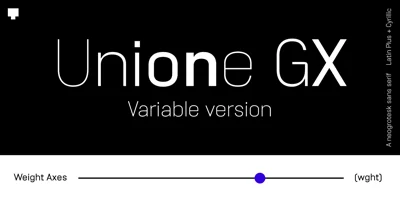
Unione GX Font
Looking for a bold and versatile typeface that combines modern aesthetics with strong visual impact? Unione GX Font is perfect for branding, advertising, editorial design, and digital content that needs a confident and contemporary look. Its clean lines and geometric shapes create a sharp and memorable impression.
Whether you're working on a corporate identity, a digital campaign, or packaging design, Unione GX Font delivers clarity and boldness in every character.